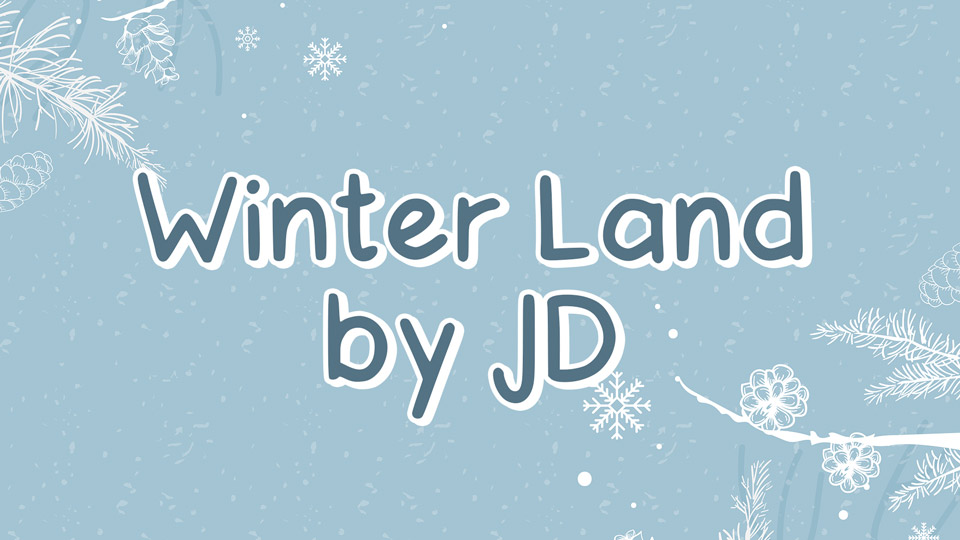
Feb 8, 2025Script & HandwrittenWinter Land by JD Font Winter Land by JD is a lovely handwritten font inspired by the cozy winter wonderland. The font is perfect for all of your craft projects, quotes, prints, notes social media , kid’s books and more. Font DetailsDesigned by: Julia DieboldWebsiteLicense: Free for commercial use, OFL Download Winter Land by JD FontFile size: 17.46 KBCreated: February 16, 2025Updated: February 16, 2025 Download Explore similar fonts The Winter Font Winter Moodboard Font Bakula Font Manifesta Font Journey Sighten Font Blau Forte Font # Casual# Cute# Handwriting